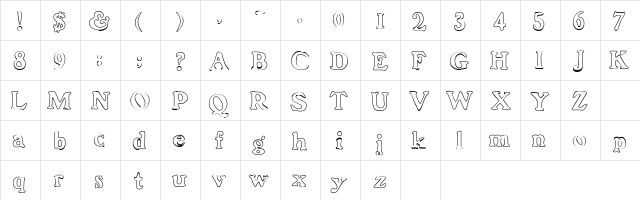
FrankenFont Hollow Regular
Design Context for FrankenFont Hollow Typeface
FrankenFont Hollow is a composed and adaptable typeface that performs quietly and consistently across a wide range of design contexts.